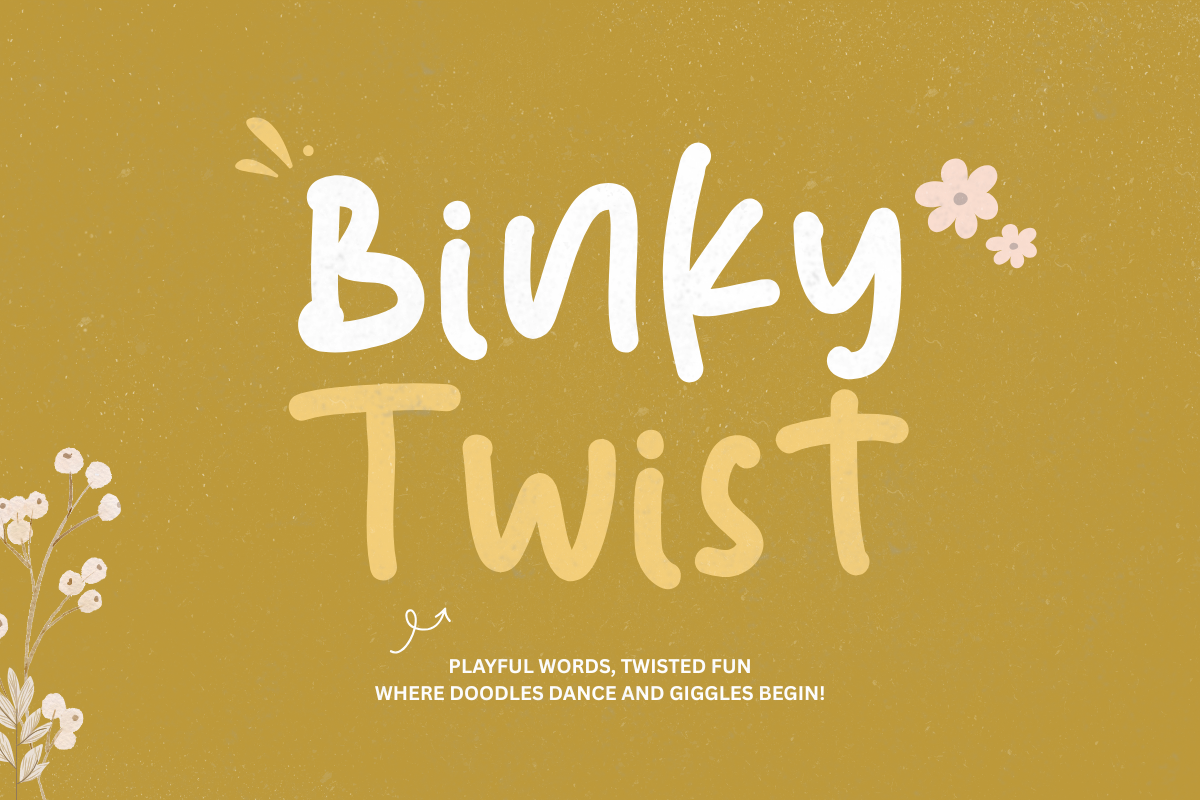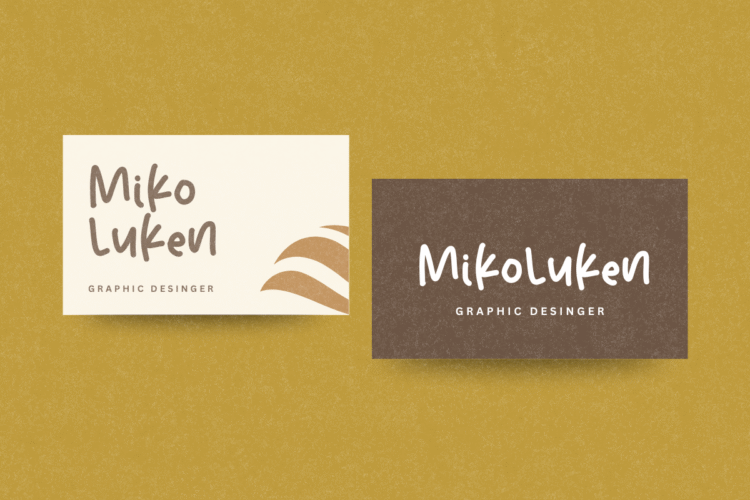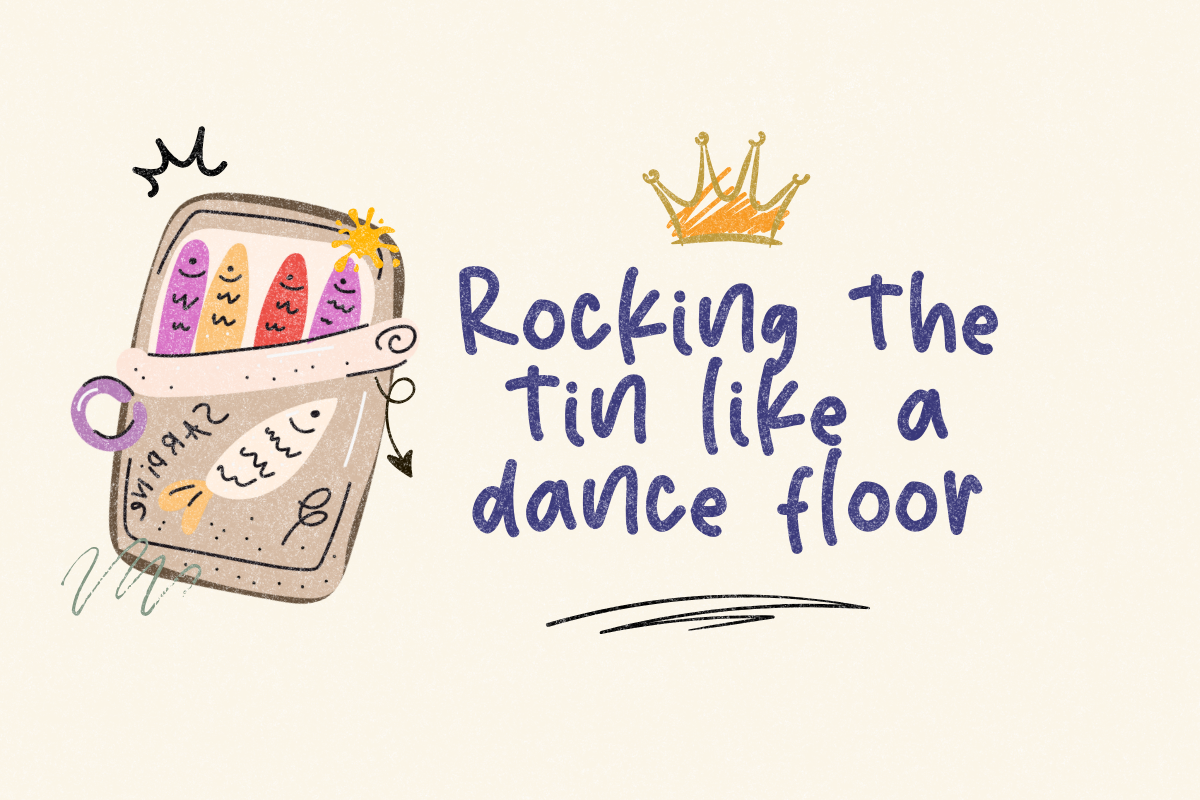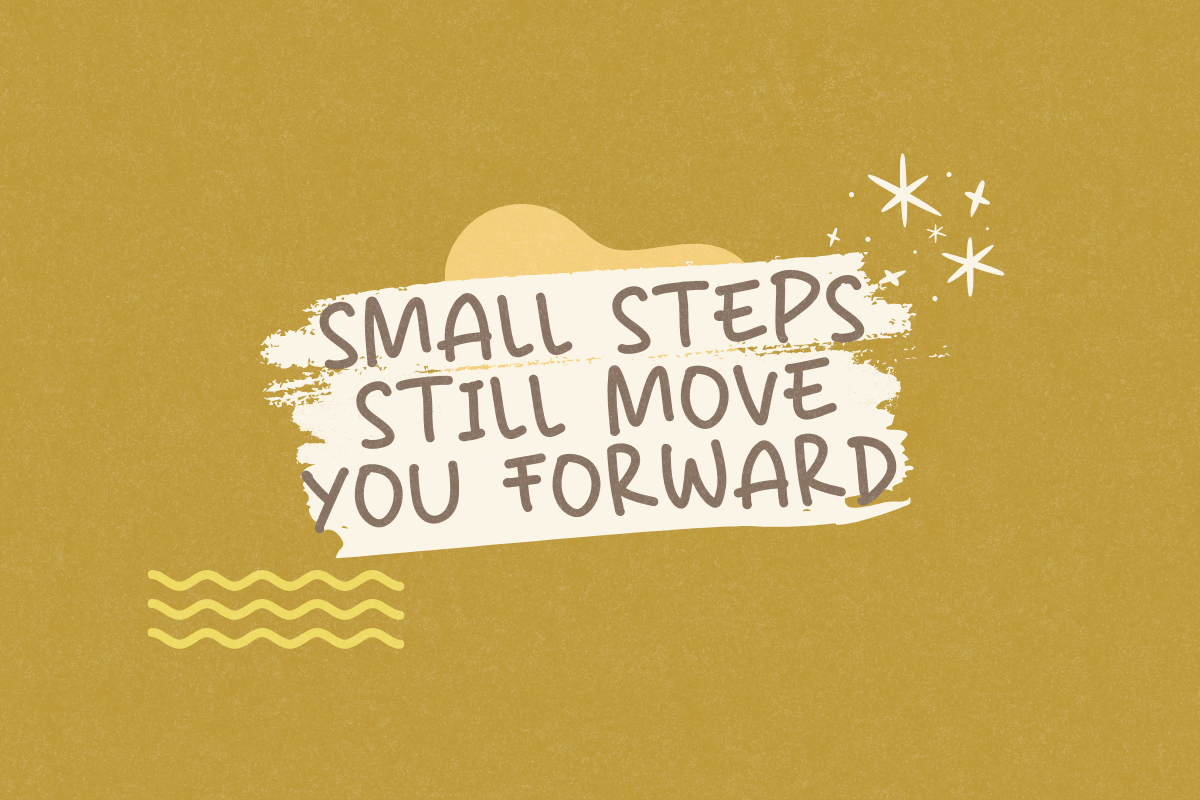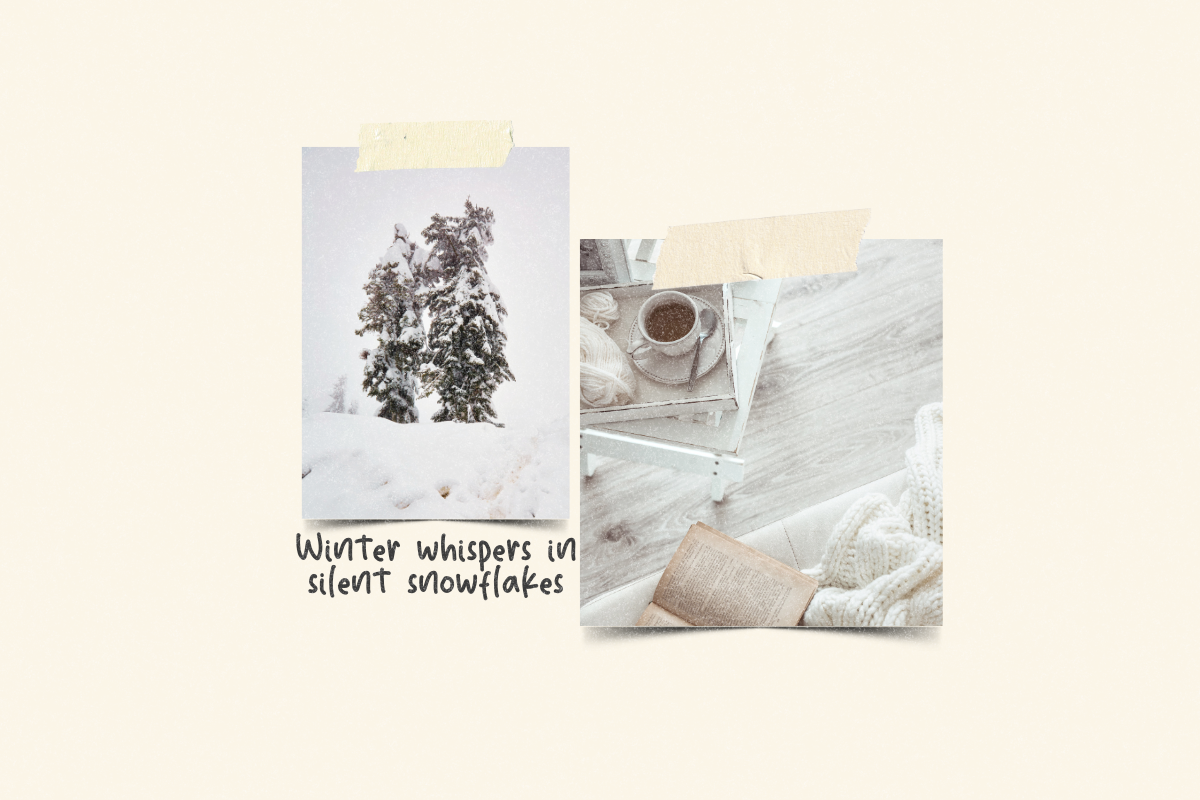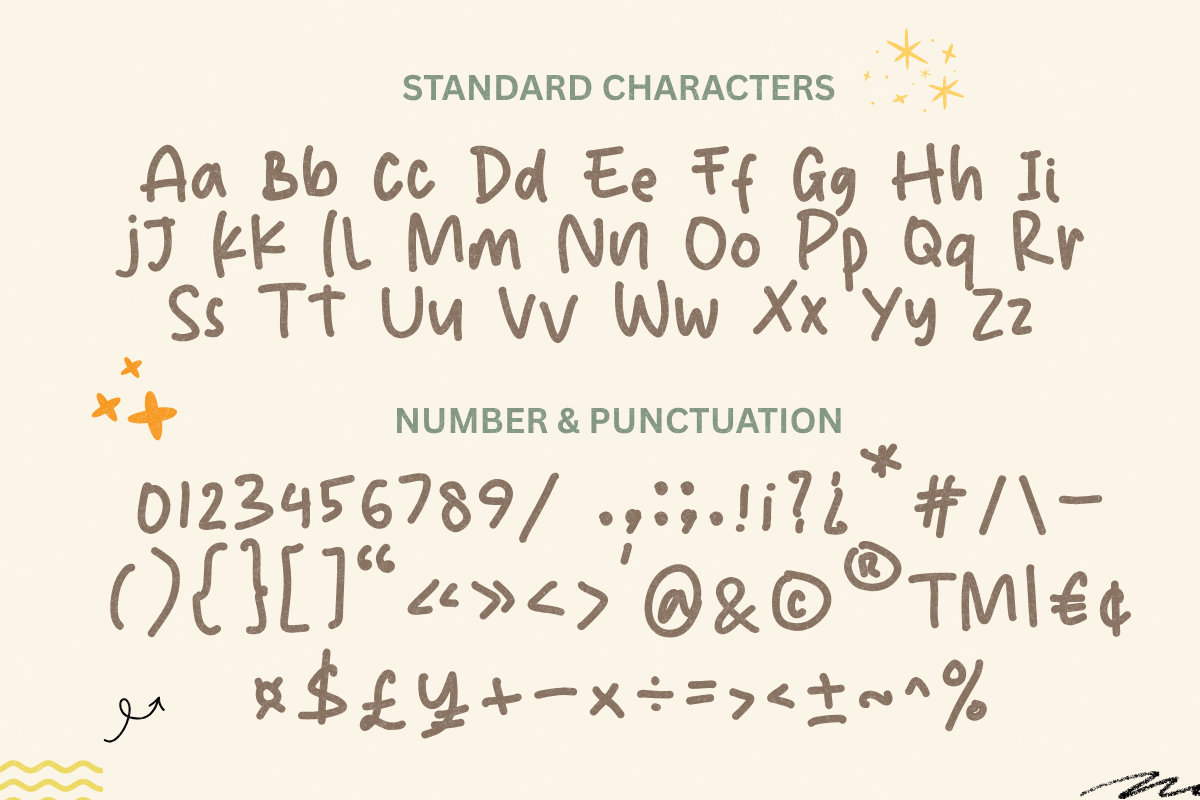
Binky Twist – A Playful Handwritten Font with Global Language Support
Bring a touch of playful charm to your designs with Binky Twist, a fun, handwritten font inspired by the joyful spirit of childhood writing. With its unique strokes and whimsical curves, Binky Twist adds a friendly, approachable personality to any creative project—from children’s books and educational materials to branding, packaging, and social media graphics.
Perfect for kids’ books, school projects, branding, packaging, and more!
Features:
- Uppercase & lowercase
- Multilingual support (90+ languages)